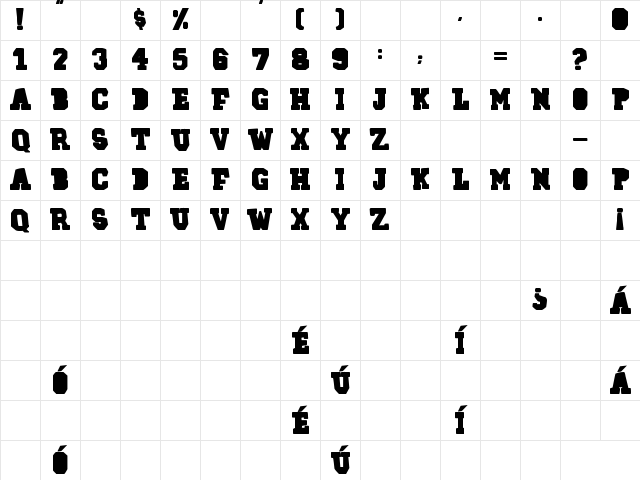
78SKATE Regular
Design Context for 78SKATE
78SKATE is a composed and adaptable typeface that performs quietly and consistently across a wide range of design contexts.